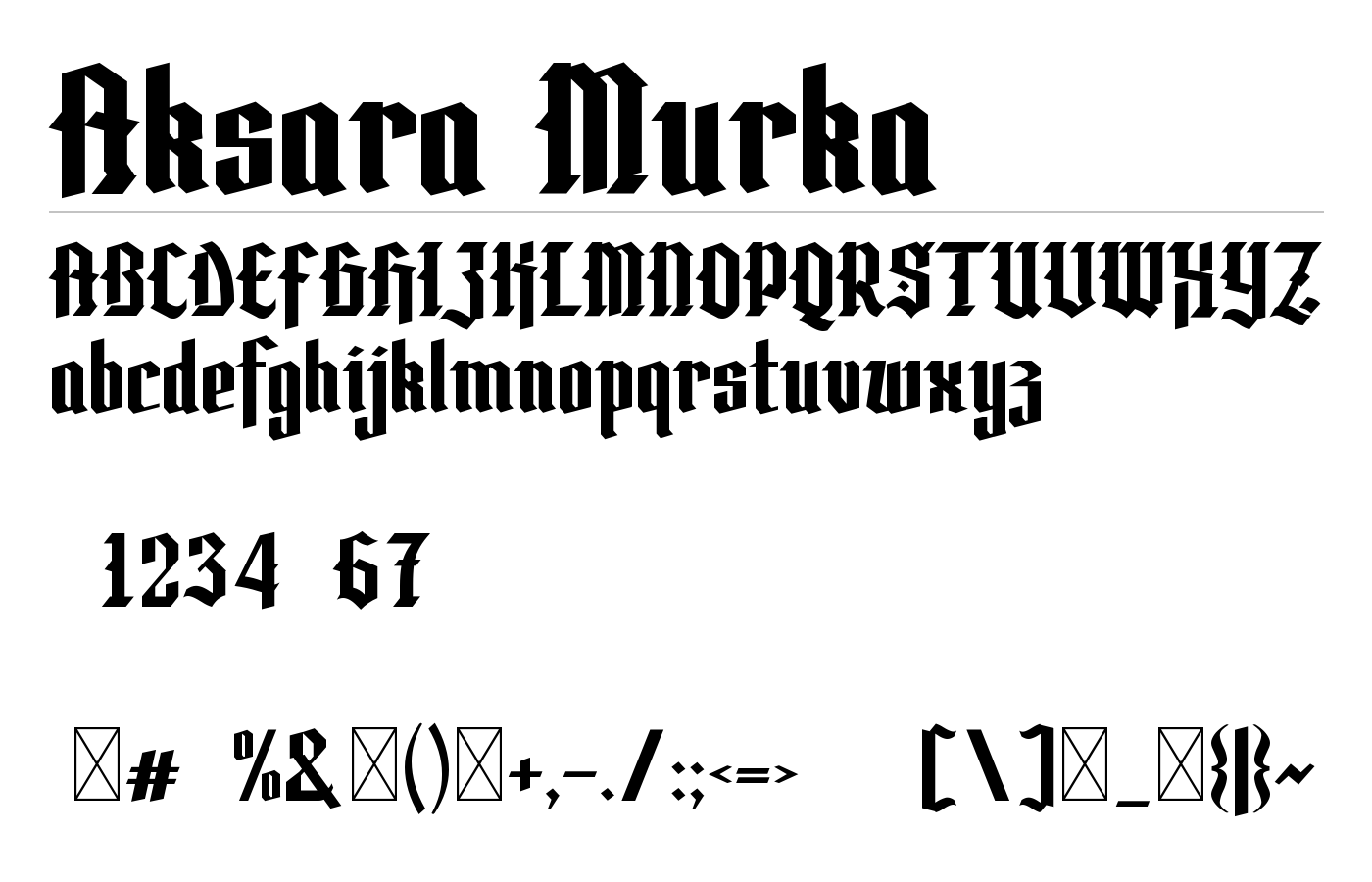
Aksara Murka is a bold blackletter font with sharp, angular strokes and high contrast, evoking a medieval Gothic style with a modern edge. Its condensed, tall letterforms and intricate details make it perfect for impactful headlines, logos, and designs that need a strong, dramatic, and historic feel. This font works well for branding and editorial projects that want to convey power, tradition, and a distinctive, edgy personality.
Aksara Murka Font
About Aksara Murka Font
| Font family | Aksara Murka Font |
| Designer | Anang F & Malik Wsn | Gassstype© Studio 2023 |